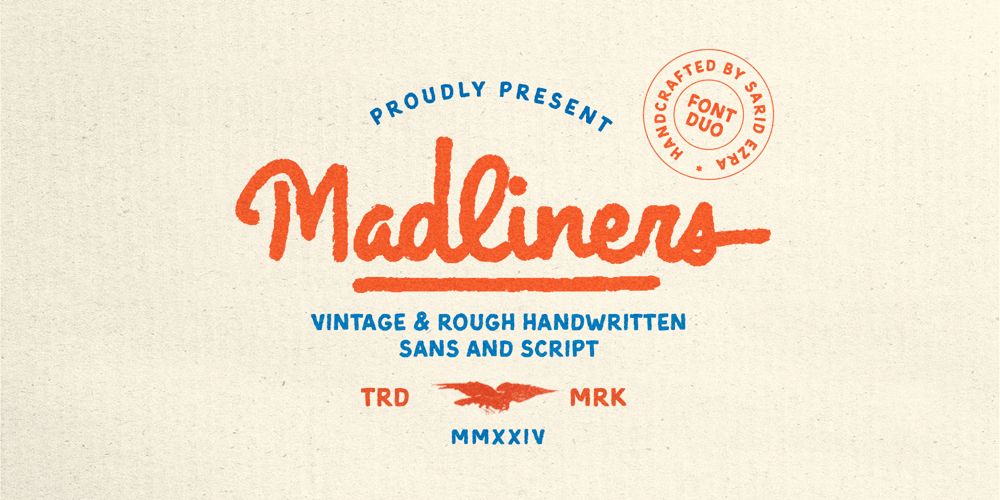
Madliners
Madliners font
Madliners Font Family was designed by Sarid Ezra and published by Sarid Ezra. Madliners contains 2 styles and family package options. Madliners is a handcrafted monoline font duo contains Script and Sans Serif with rough and vintage looks. You can easily make logotype or badge for your outdoor or adventure logo with this font combinations. It’s also great for quotes. You can use this font duo for any purposes that need natural and handmade looks! Madliners also support multi language!